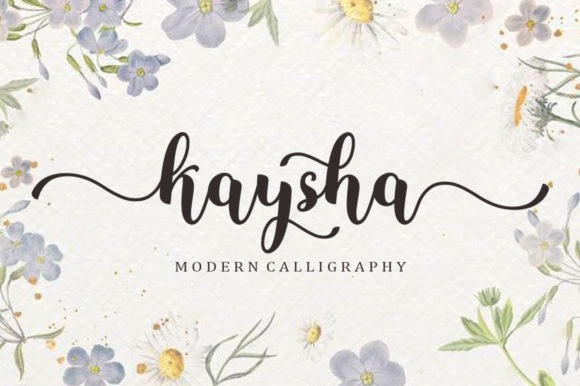
Kaysha Font
Kaysha Calligraphy Font is an enchanting handwritten font. This versatile script font has a wide spectrum of applications ranging from greeting cards to headlines. Kaysha is PUA encoded which means you can access all of the glyphs and swashes with ease!